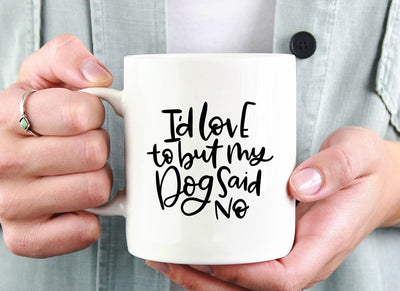
This funny dog SVG design says I'd Love To But My Dog Said No. And, I can relate. I'd rather stay home with my dog on a Friday night. Grab this funny dog SVG files design and craft cute shirts, mugs and more for your favorite dog lover.
You’re receiving the phrase:I'd Love To But My Dog Said No (this is not a font, this is hand lettering). I’m sharing previews as examples of how you can use this really adorable design over and over again for your home business or personal use. Thanks for your support! No physical product is given to you. You are downloading the digital files to create your own gifts or products using the design file.